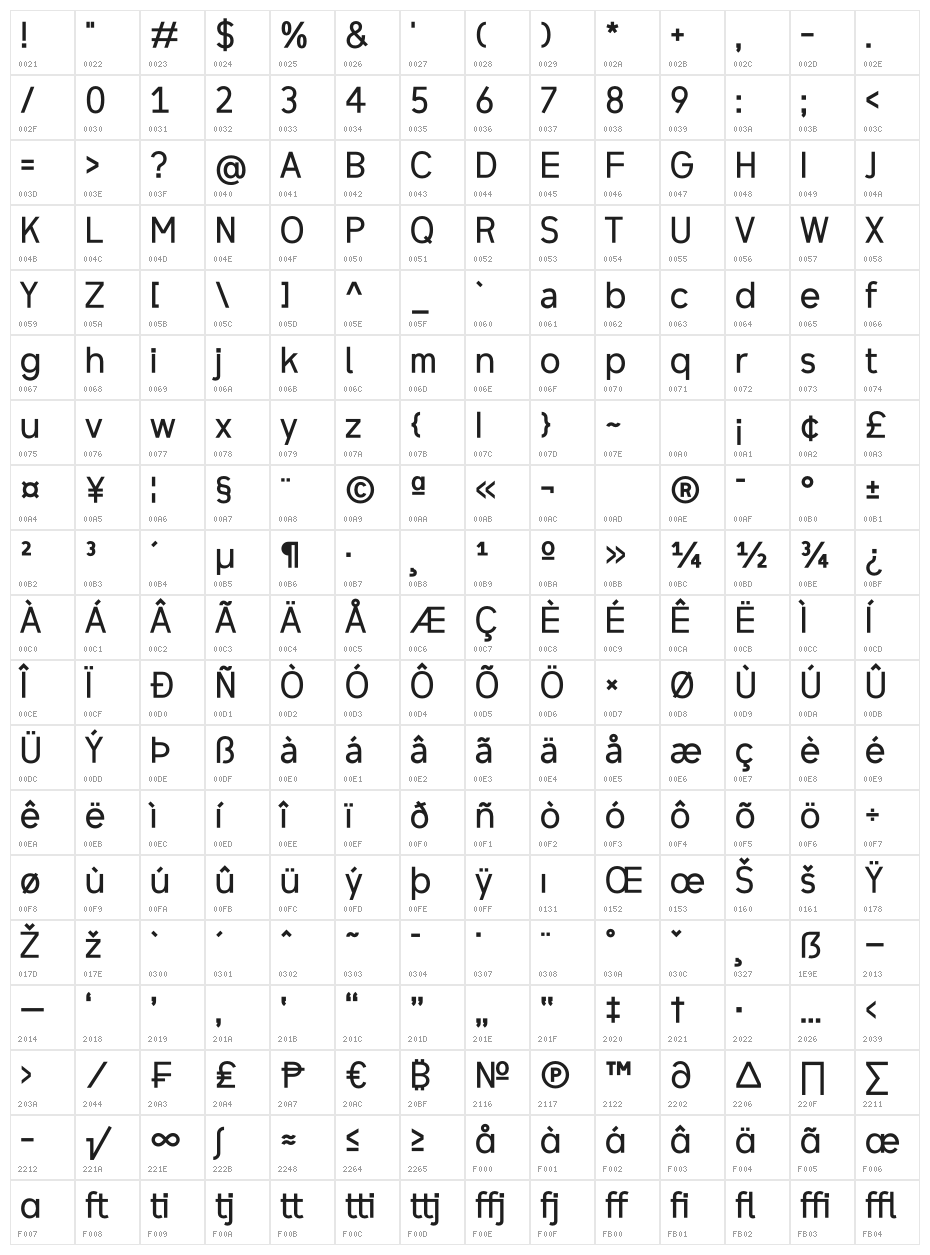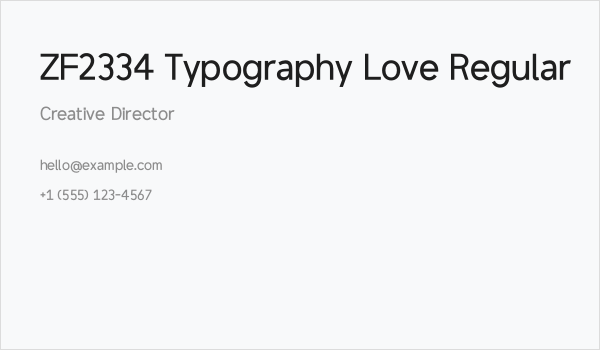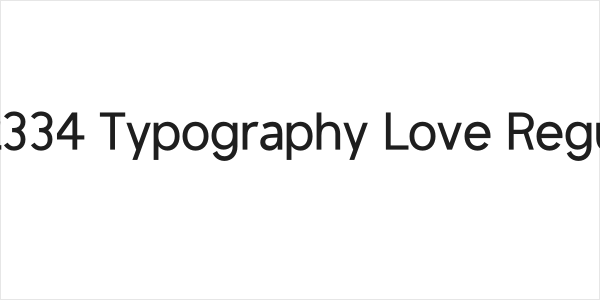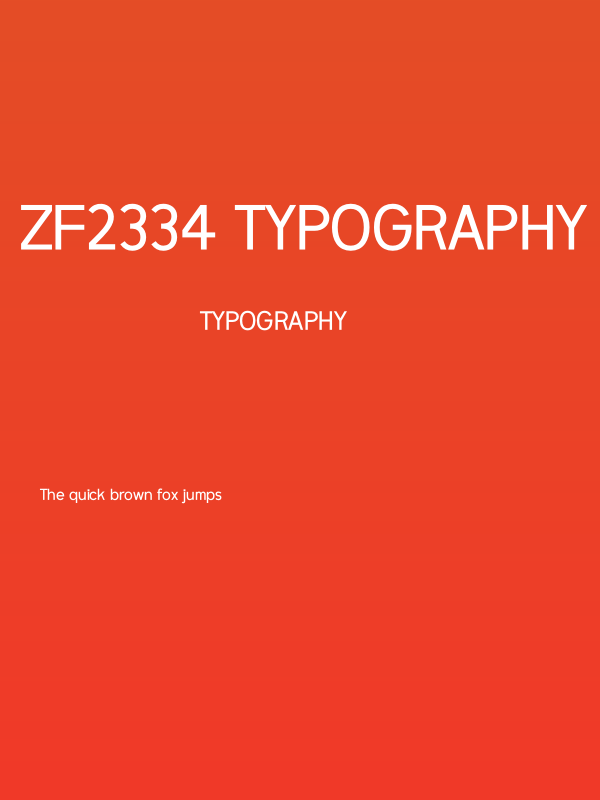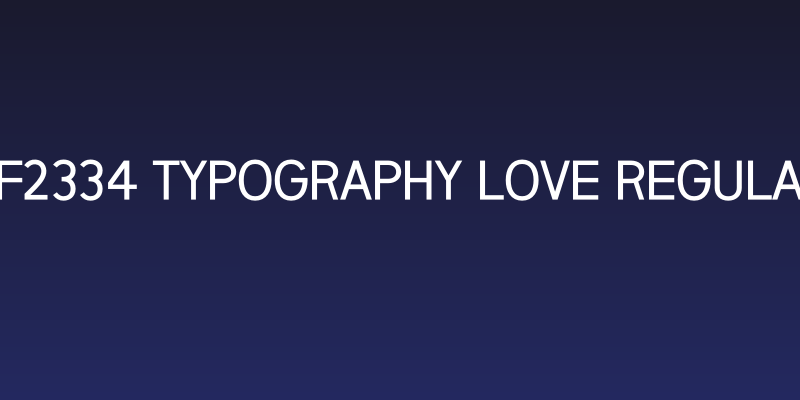
ZF2334 Typography Love Regular Font
ZF2334 Typography Love Regular Description
This font features a clean and modern design with a touch of elegance. The characters are well-balanced, offering a harmonious blend of curves and straight lines. The uppercase letters are bold and assertive, while the lowercase letters maintain a softer, more approachable appearance. The numerals are clear and easy to read, making them suitable for a variety of applications. Special characters are distinct and integrate seamlessly with the rest of the font, ensuring consistency across different uses. The overall design is versatile, making it suitable for both digital and print media.
| Proposed Projects | Ideal for branding, editorial design, advertising, and digital media projects. |